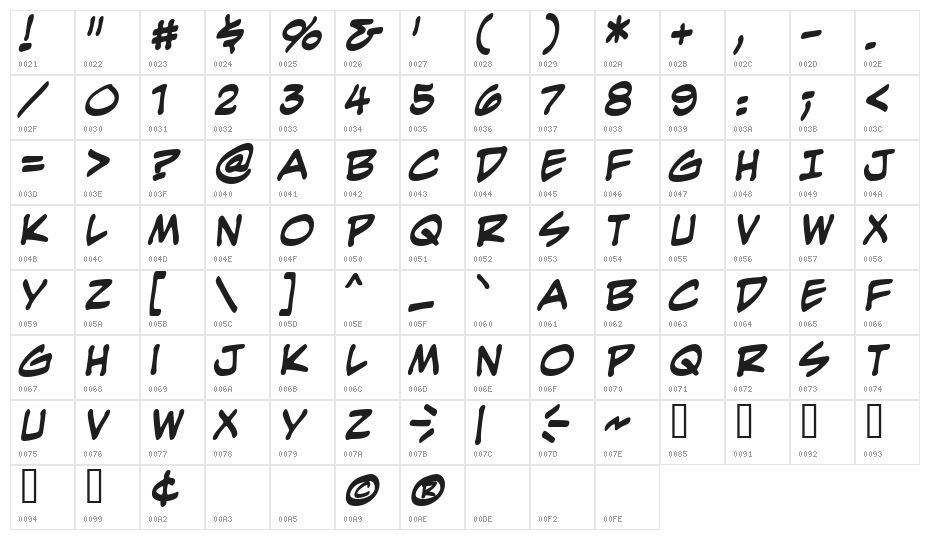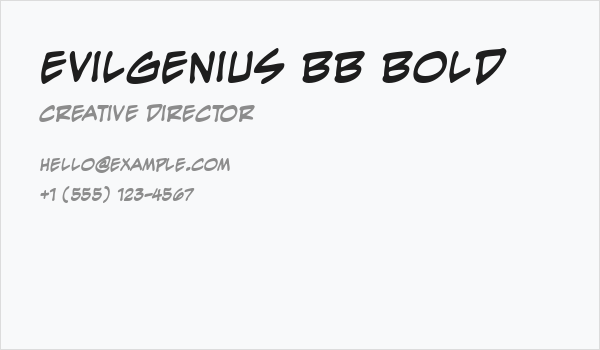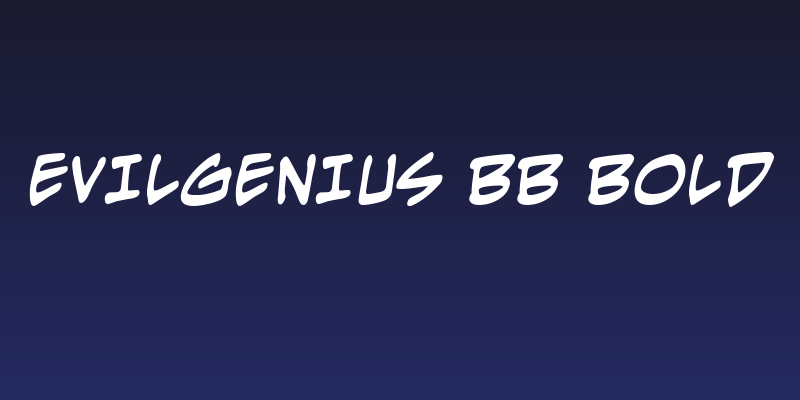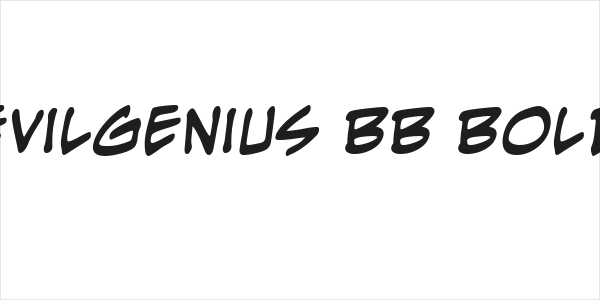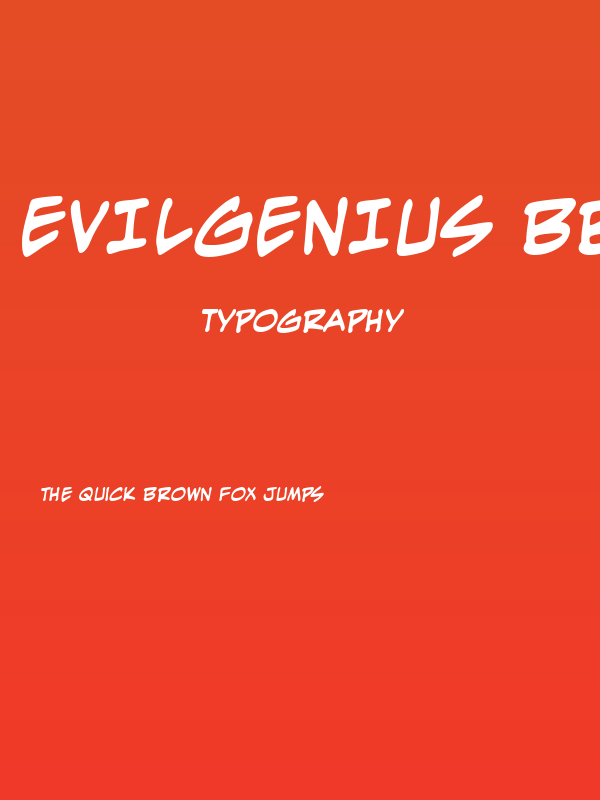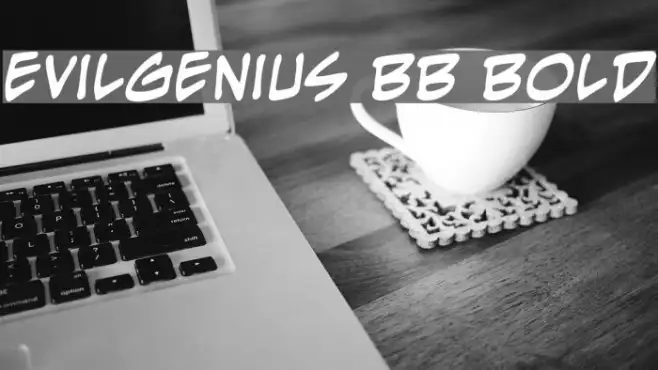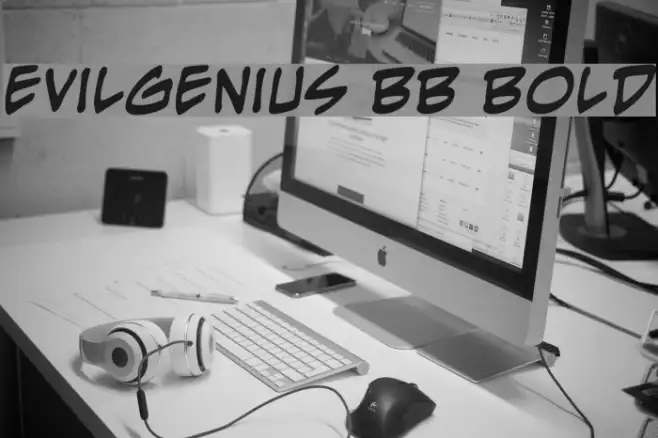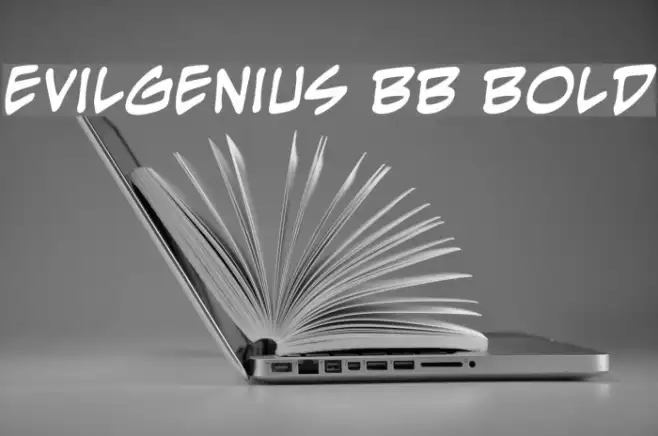
EvilGenius BB Bold Font
EvilGenius BB Bold Description
This font features a bold and playful style with a handwritten appearance. The characters are slightly slanted, giving it a dynamic and energetic feel. The strokes are thick and consistent, providing a strong visual impact. The uppercase and lowercase letters maintain a cohesive look, while the numbers and special characters complement the overall design. This font is ideal for projects that require a fun and informal touch, such as comic books, children's books, or playful branding.
| Proposed Projects | Comic books, children's books, playful branding, posters, and informal invitations. |